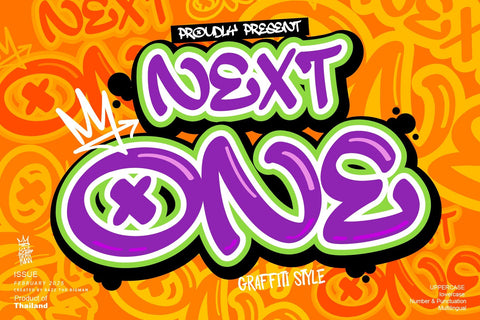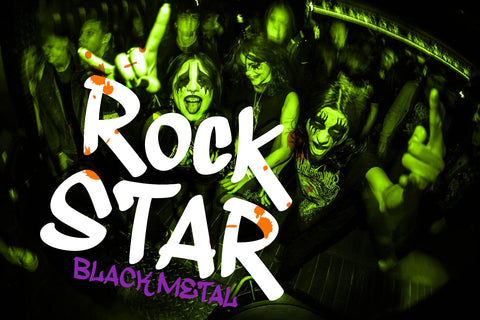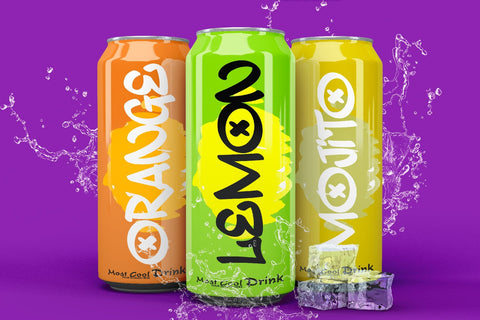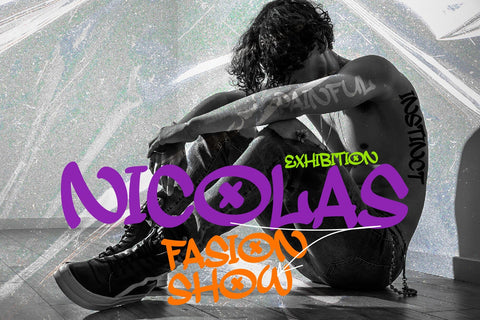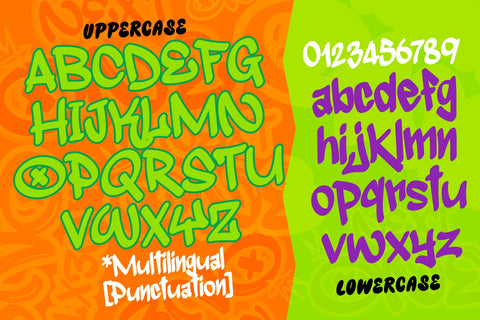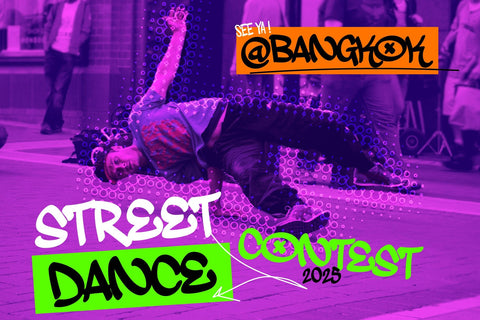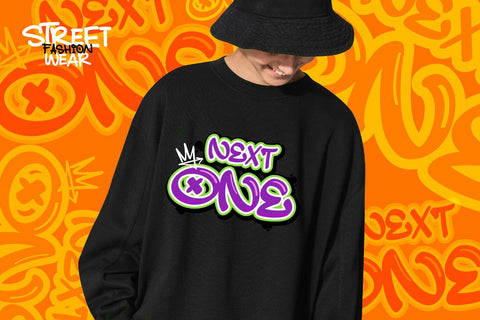
Next One
Unleash the pulse of raw, urban energy with Next One Font. This distinctive marker-style graffiti font has been meticulously crafted to inject your designs with an audacious, cutting-edge, and inventive atmosphere. Rendered with a bold intent, this typeface embodies the edgy spirit of graffiti art, transforming the simplest of designs into a powerful visual statement. Immerse in the urban culture and let your creativity soar with Next One Font.